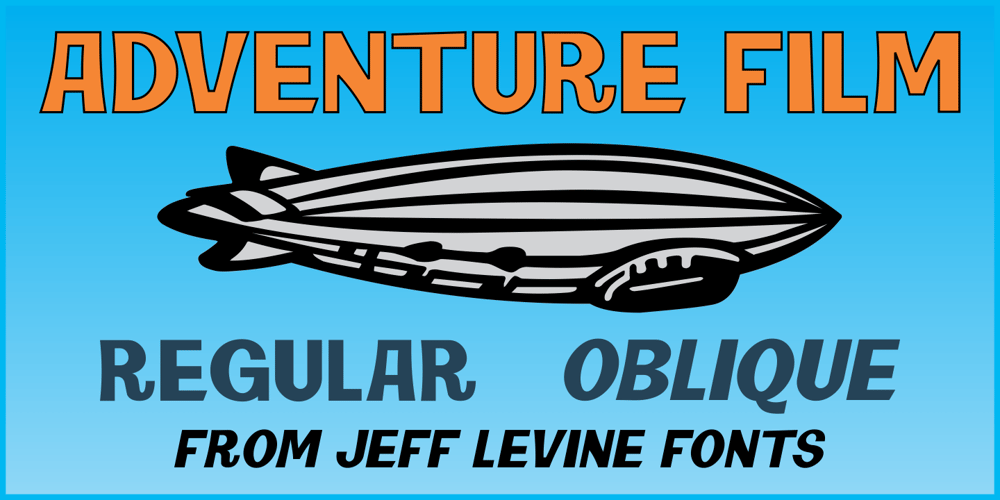
Adventure Film JNL
Adventure Film JNL font
Adventure Film JNL Font Family was designed by Jeff Levine and published by Jeff Levine. Adventure Film JNL contains 2 styles and family package options. In most cases, motion pictures with a Western theme have their titles and credits lettered in type styles that reflect the period of the Old West.In 1966, the titles and credits for “Texas Across the River” used casual sans serif lettering more suited to the 1960s than a Western taking place in the 1800s.Nonetheless, the lettering inspired a digital font entitled Adventure Film JNL and it is available in both regular and oblique versions.